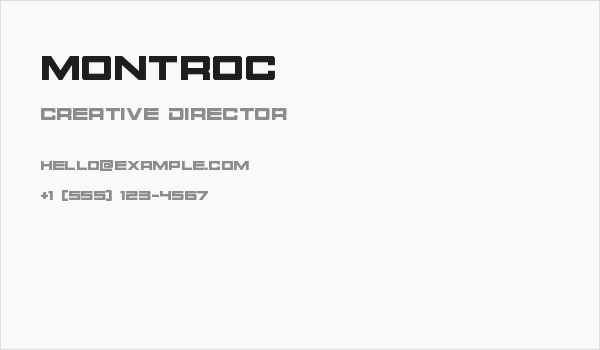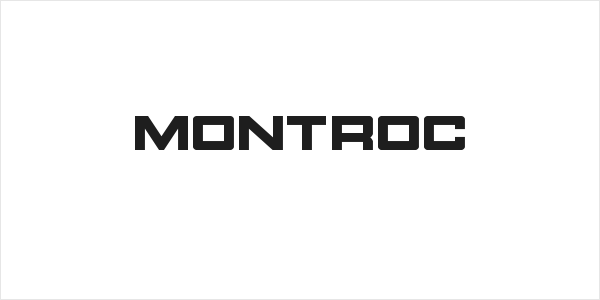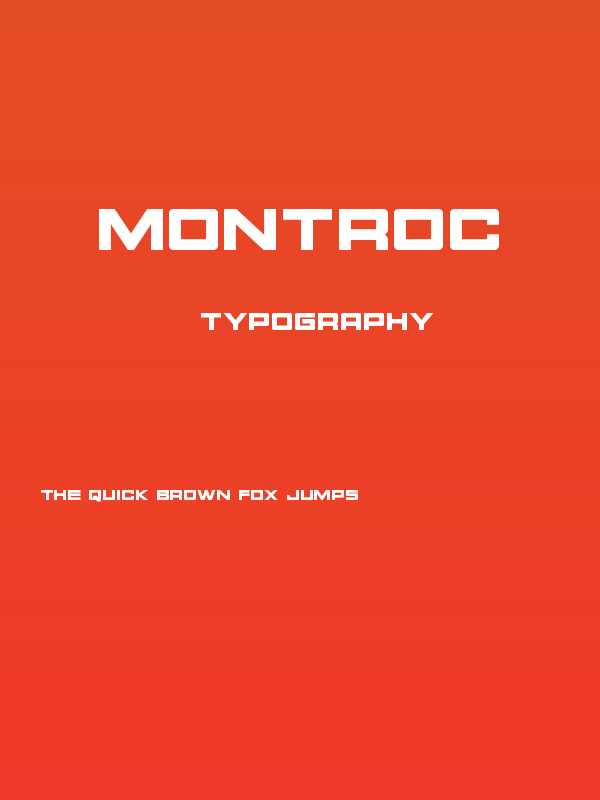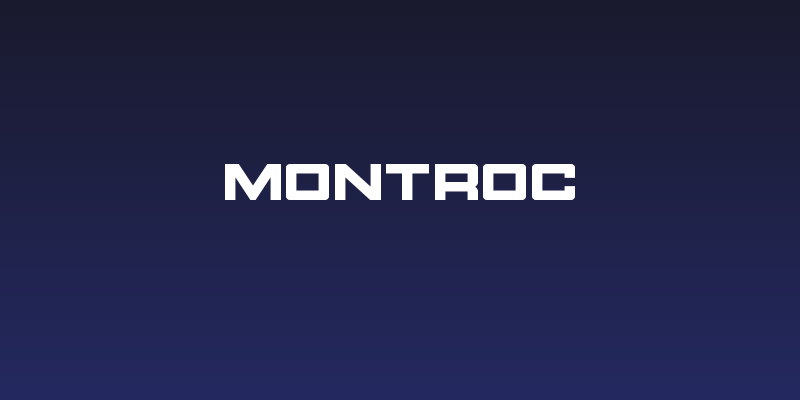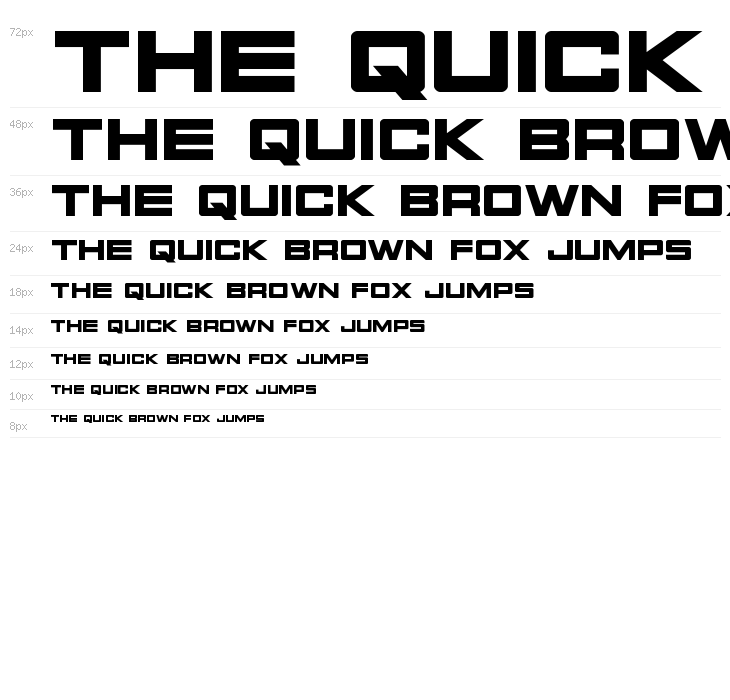
Montroc Font
Montroc Description
This font features a bold, geometric design with a modern and futuristic aesthetic. The characters are constructed with sharp angles and straight lines, giving them a strong and impactful presence. The uppercase letters are uniform in height, while the lowercase letters maintain a consistent style that complements the uppercase. The numbers are equally bold and follow the same geometric style, ensuring readability and consistency across all characters. Special characters are designed to match the overall aesthetic, making this font suitable for a variety of applications where a modern and bold statement is desired.
| Proposed Projects | Ideal for technology branding, video game titles, posters, and modern advertising campaigns. |